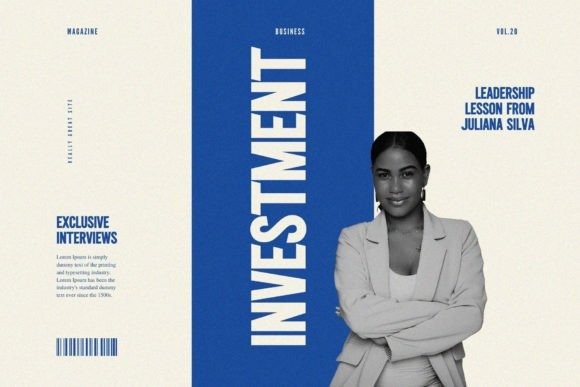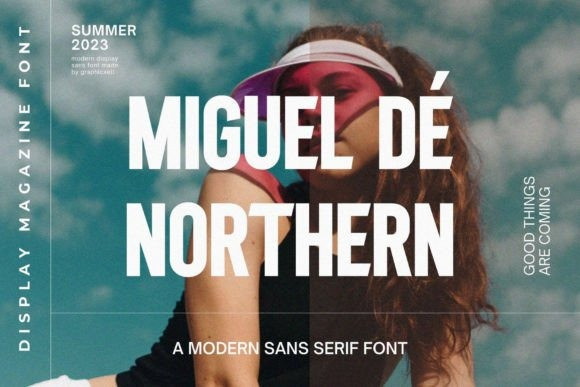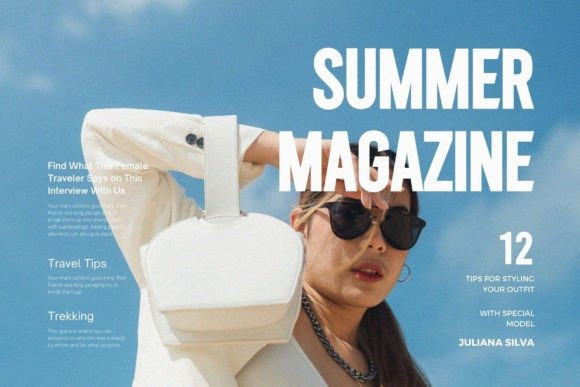
Miguel De Northern Font
Miguel De Northern Font is a modern and trendy sans serif font combining sleek simplicity and contemporary flair. Its clean and geometric letterforms create a sense of professionalism and versatility, making it suitable for various design projects. With its balanced proportions and sharp edges, Miguel De Northern delivers a modern aesthetic that captures attention and conveys a sense of sophistication.